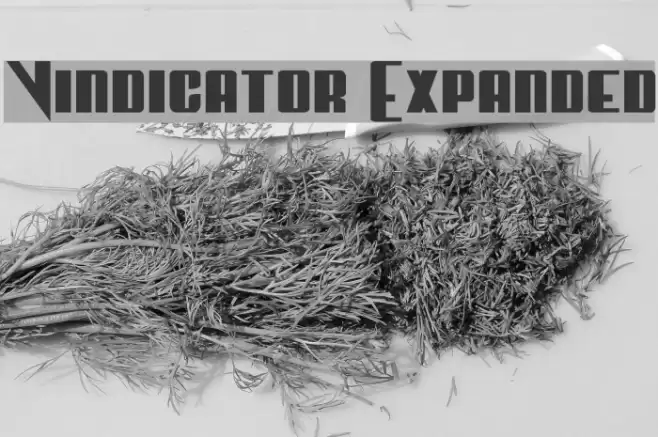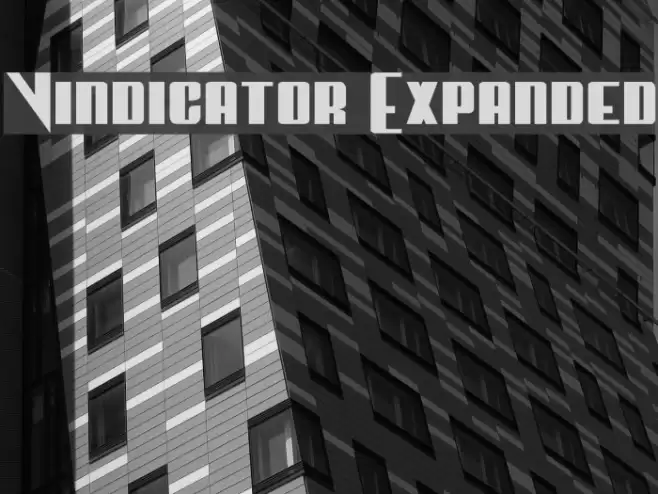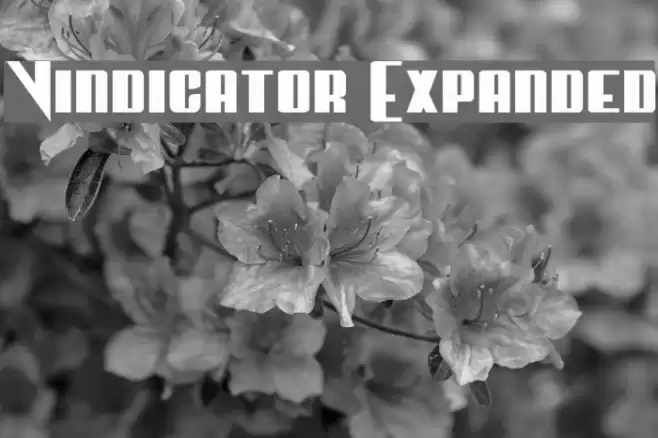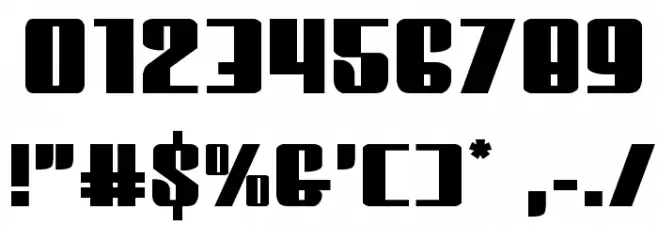
Vindicator Expanded Font
Vindicator Expanded Description
This font features a bold and striking design with a strong geometric influence. The characters are wide and blocky, with a consistent thickness throughout, giving it a powerful and commanding presence. The uppercase letters are particularly dominant, with sharp angles and a futuristic aesthetic. The numbers and special characters maintain the same boldness, ensuring uniformity across all elements. This font is ideal for making a statement, with its expanded width and high impact style.
A bold, geometric font with a futuristic and commanding presence from Uncategorized fonts.
- Proposed Projects: Ideal for posters, headlines, branding, and any project requiring a strong visual impact.